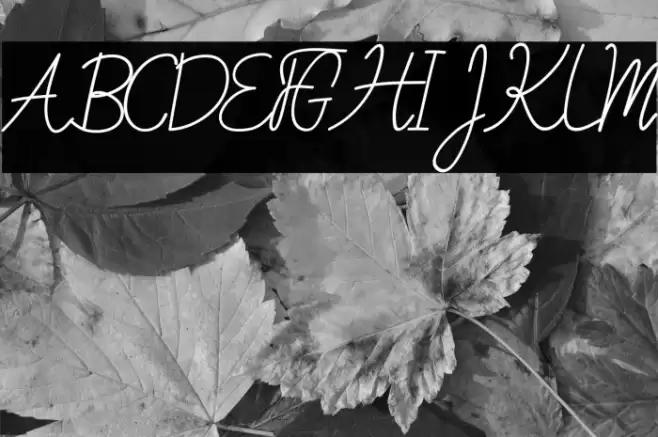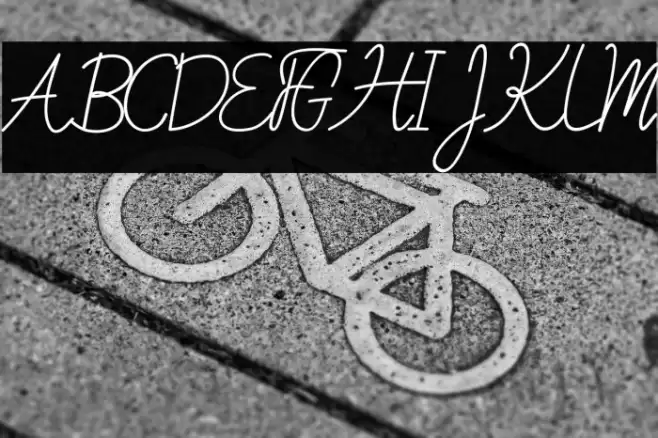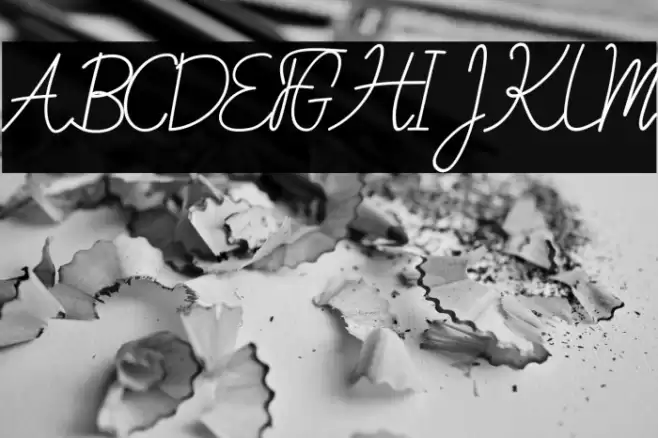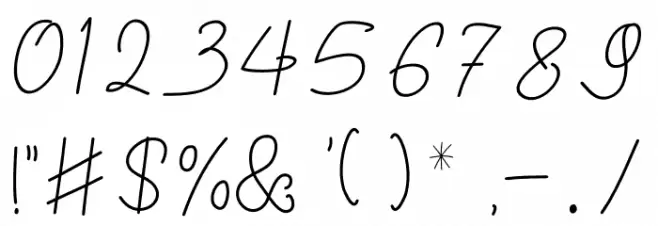
Sweet Petunia Font
Sweet Petunia Description
This font exudes a playful and elegant handwritten style, characterized by its fluid and continuous strokes. The uppercase letters are tall and slightly slanted, giving a sense of movement and dynamism. The lowercase letters maintain a consistent flow, with some characters featuring loops and curves that enhance its handwritten appeal. The numerals are clear and legible, maintaining the same fluidity as the alphabet. Special characters are well-integrated, matching the overall style of the font. This font is perfect for projects that require a personal touch, such as invitations, greeting cards, or branding materials that aim to convey warmth and approachability.
A playful and elegant handwritten font with fluid, continuous strokes from Uncategorized fonts.
- Proposed Projects: Ideal for invitations, greeting cards, personal branding, and creative projects requiring a personal touch.
- Use Case: Logos, Headlines, Personal projects